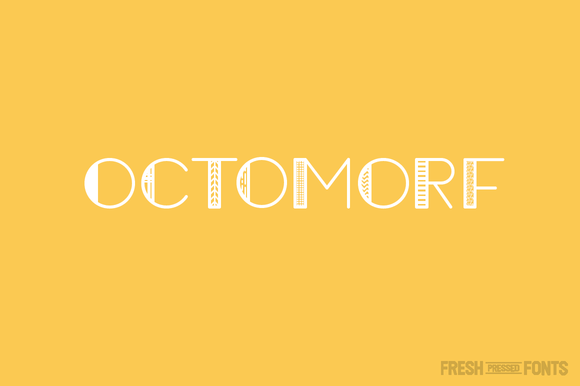
Octomorf Font
Unleash the power of captivating expression with Octomorf Font, a breathtaking display font family that embodies the very essence of Art Deco opulence. Immerse yourself in an awe-inspiring collection of eight distinct styles, each adorned with intricate patterns that ignite your imagination.
Octomorf Ivy entwines your words with the delicate tendrils of nature, evoking an air of timeless elegance. Octomorf Plank exudes a raw and industrial charm, reminiscent of weathered wood with its captivating grain. Octomorf Wooly embraces a playful spirit, its soft and fuzzy texture inviting you to cozy up to its whimsical embrace.
Octomorf Flannel envelops your designs in a warm and comforting plaid, adding a touch of homely charm. Octomorf Blocky makes a bold statement with its sharp angles and geometric precision, giving your creations a modern and striking edge. Octomorf Pointilism dances across the page like a constellation of shimmering dots, creating a captivating visual tapestry.
Octomorf Radical defies convention with its edgy and nonconformist style, pushing the boundaries of design. Octomorf Tempered rounds out the collection with its subtle sophistication, its refined lines adding a touch of grace and poise to your work.
With Octomorf Font, the possibilities are endless. Whether you seek to craft elegant invitations, captivating posters, or eye-catching branding, this versatile font family empowers you to convey your message with unparalleled style and impact.
Indulge in the allure of Octomorf Font today and elevate your designs to new heights of visual brilliance. Embrace the transformative power of expression and let your creativity soar on the wings of this exceptional typographic masterpiece.